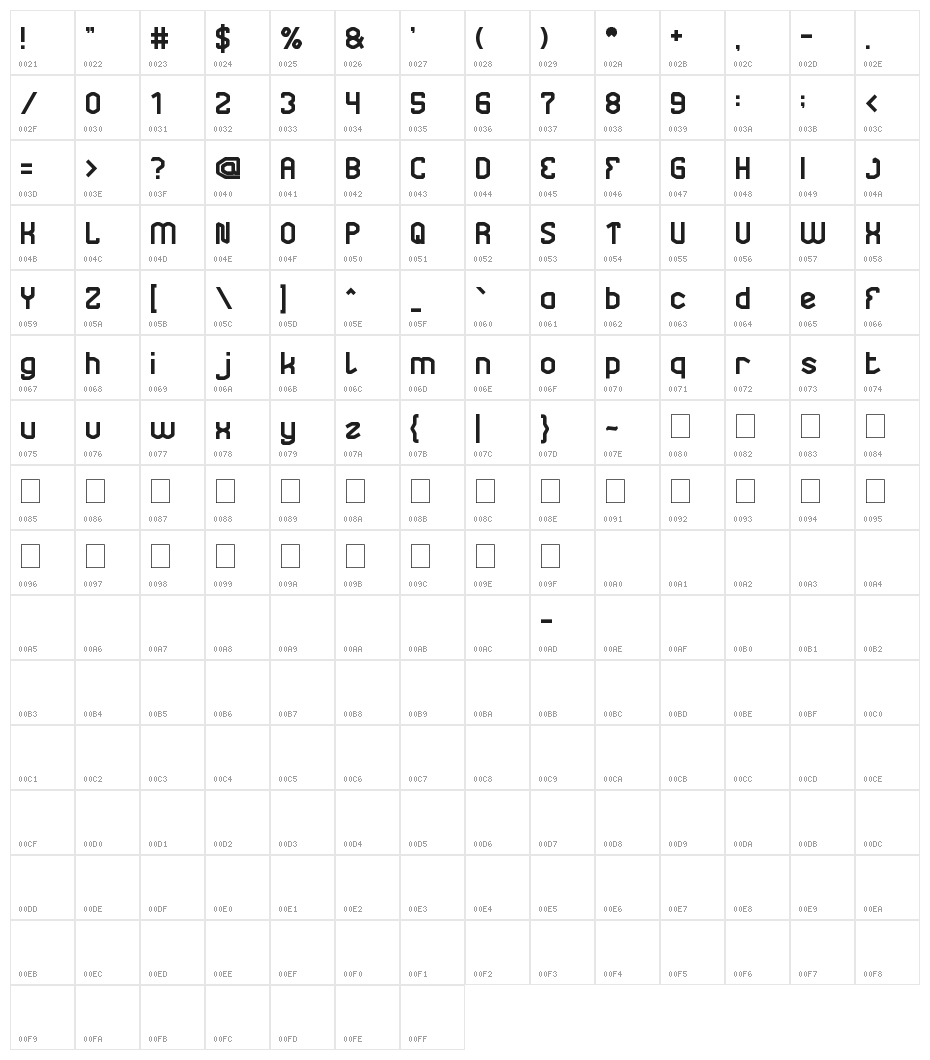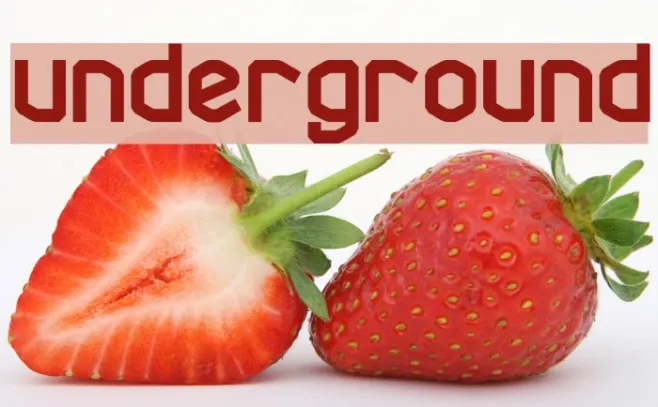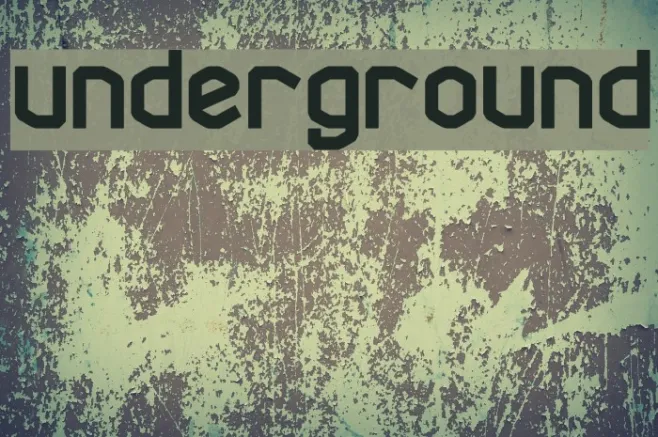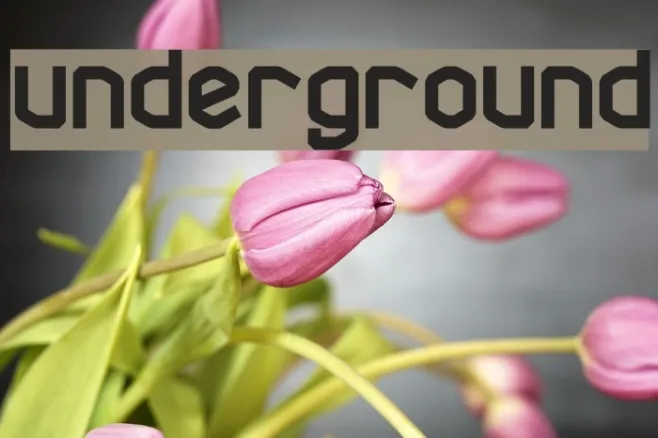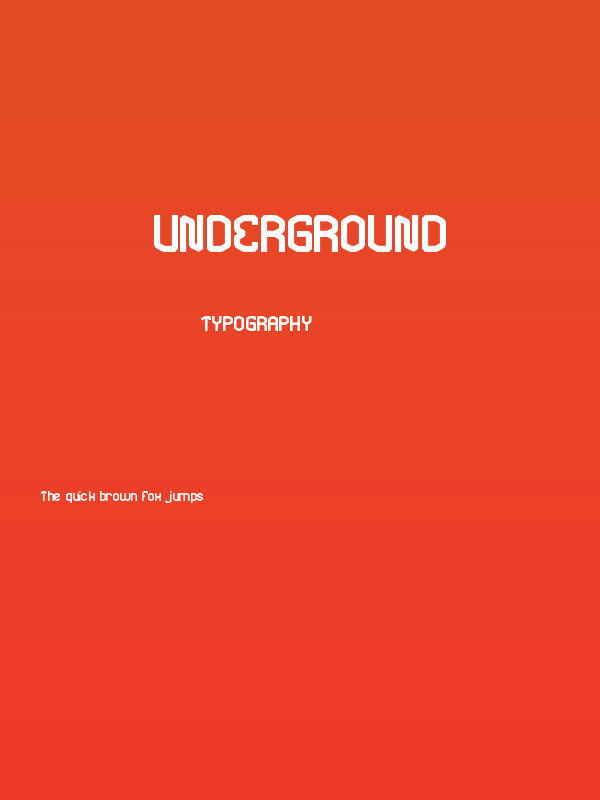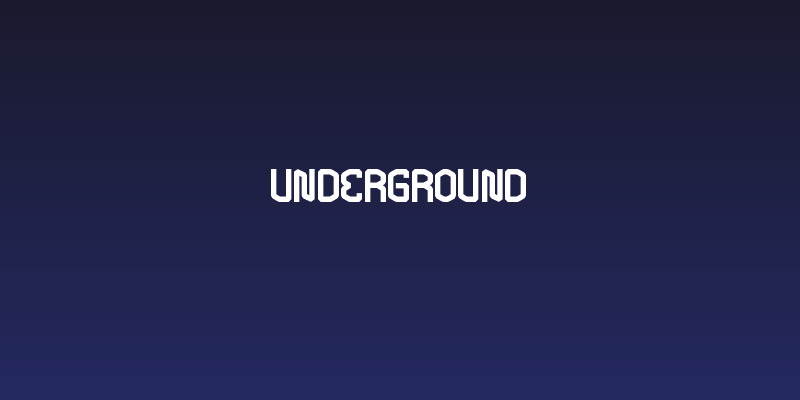
underground Font
underground Description
This font features a bold, geometric design with a modern, industrial feel. The characters are constructed with straight lines and sharp angles, giving it a distinctive, edgy appearance. The uppercase and lowercase letters maintain a consistent style, with uniform stroke widths that create a cohesive look. The numerals and special characters follow the same design principles, ensuring visual harmony across all elements. This font's unique style makes it stand out, while its readability remains intact due to the clear, structured forms of each character.
| Proposed Projects | Ideal for branding, posters, and signage that require a modern, edgy look. |